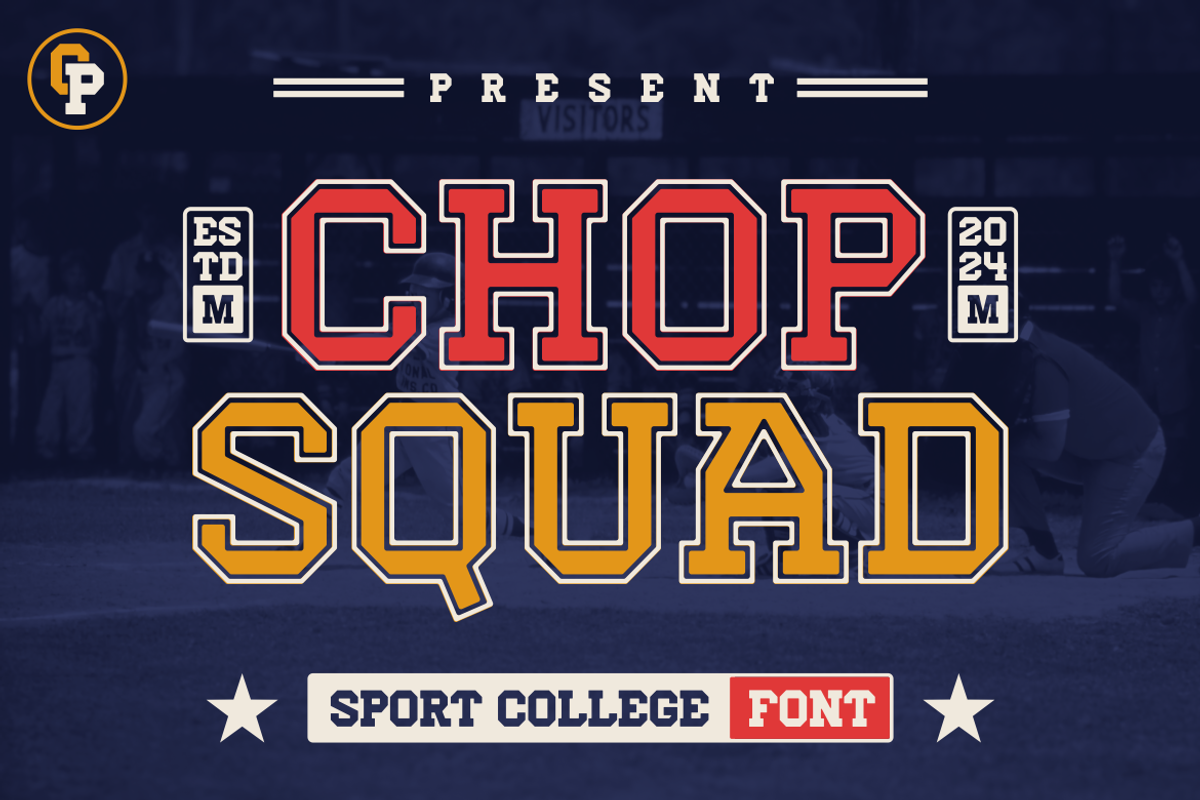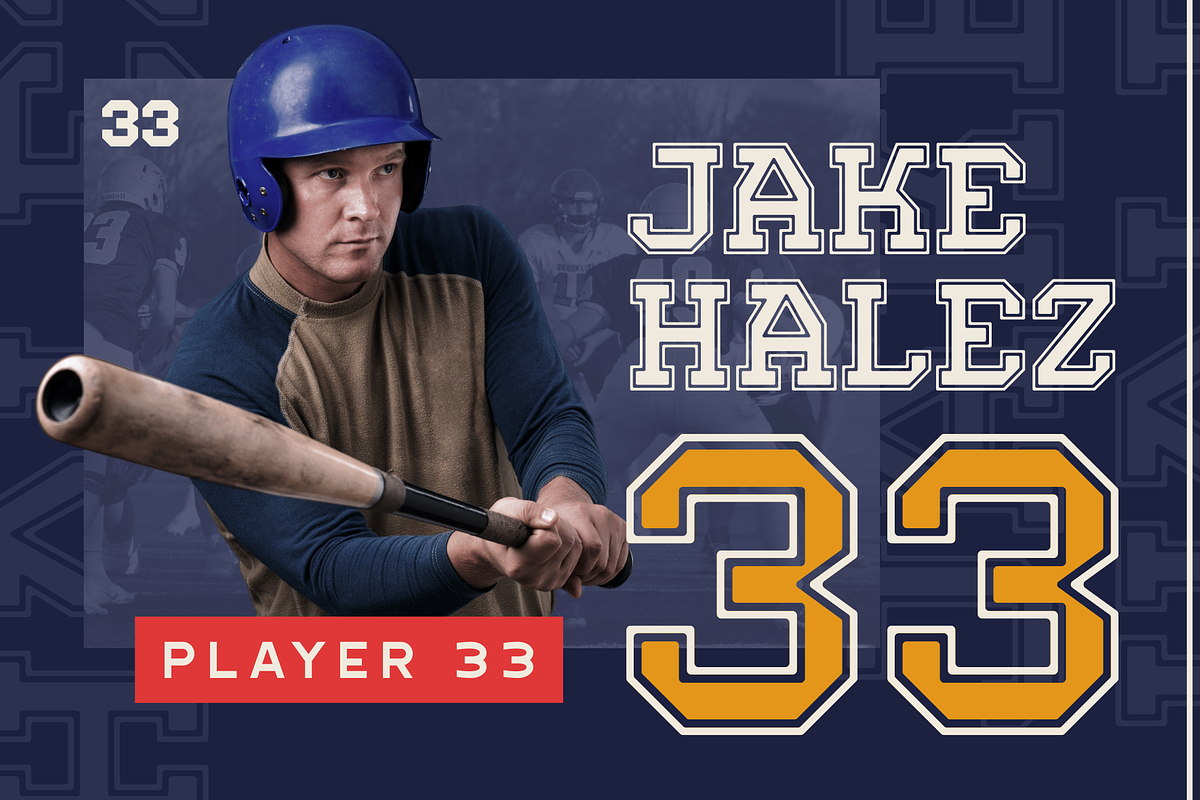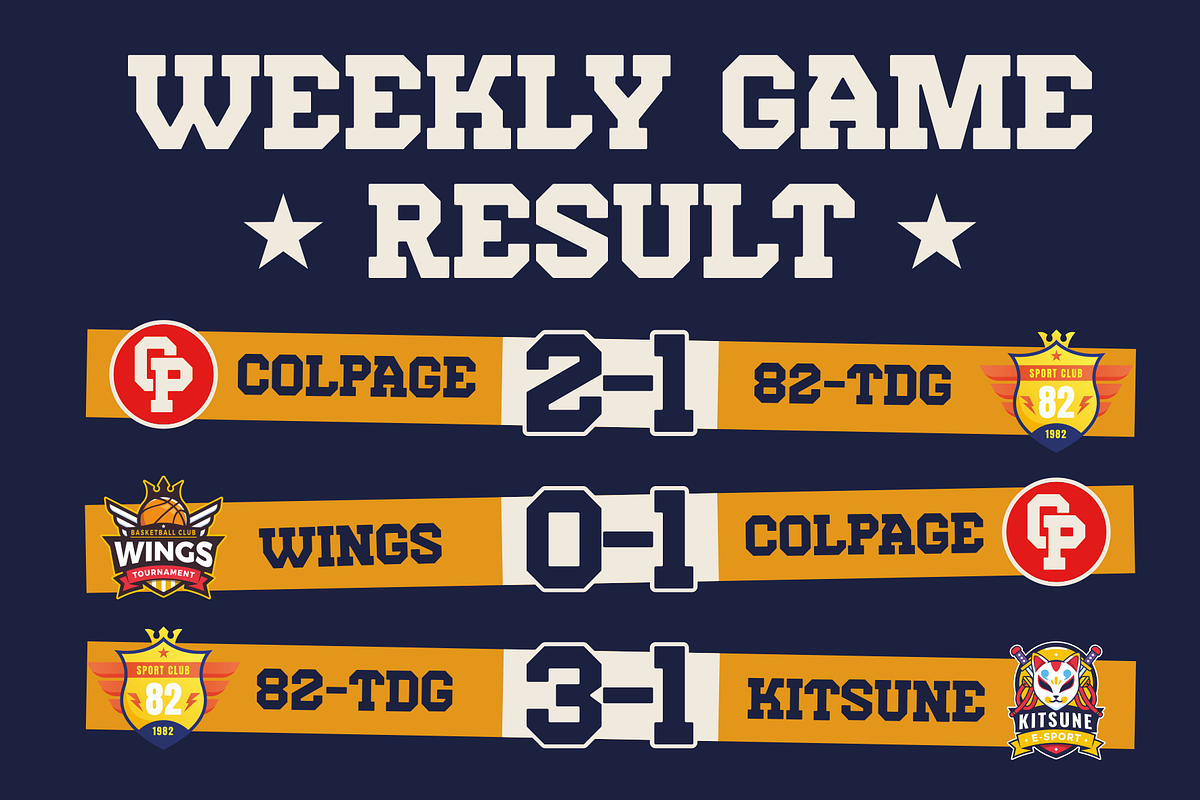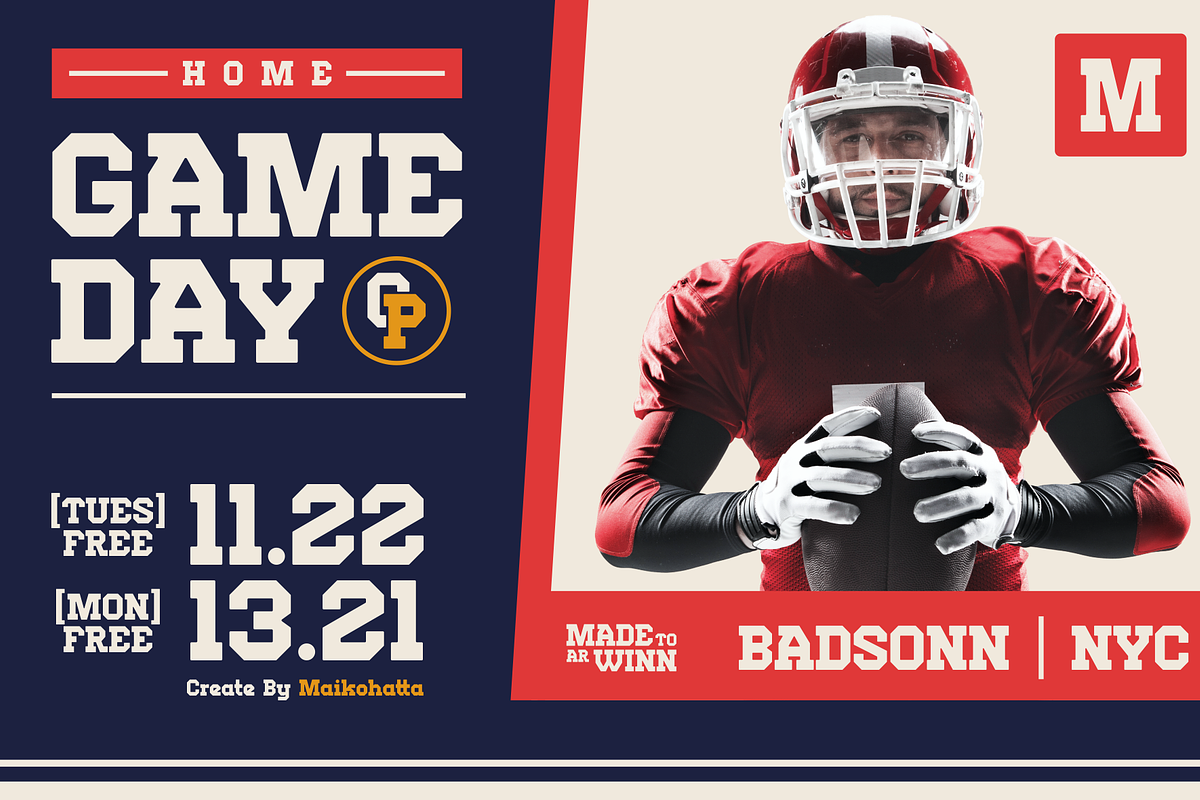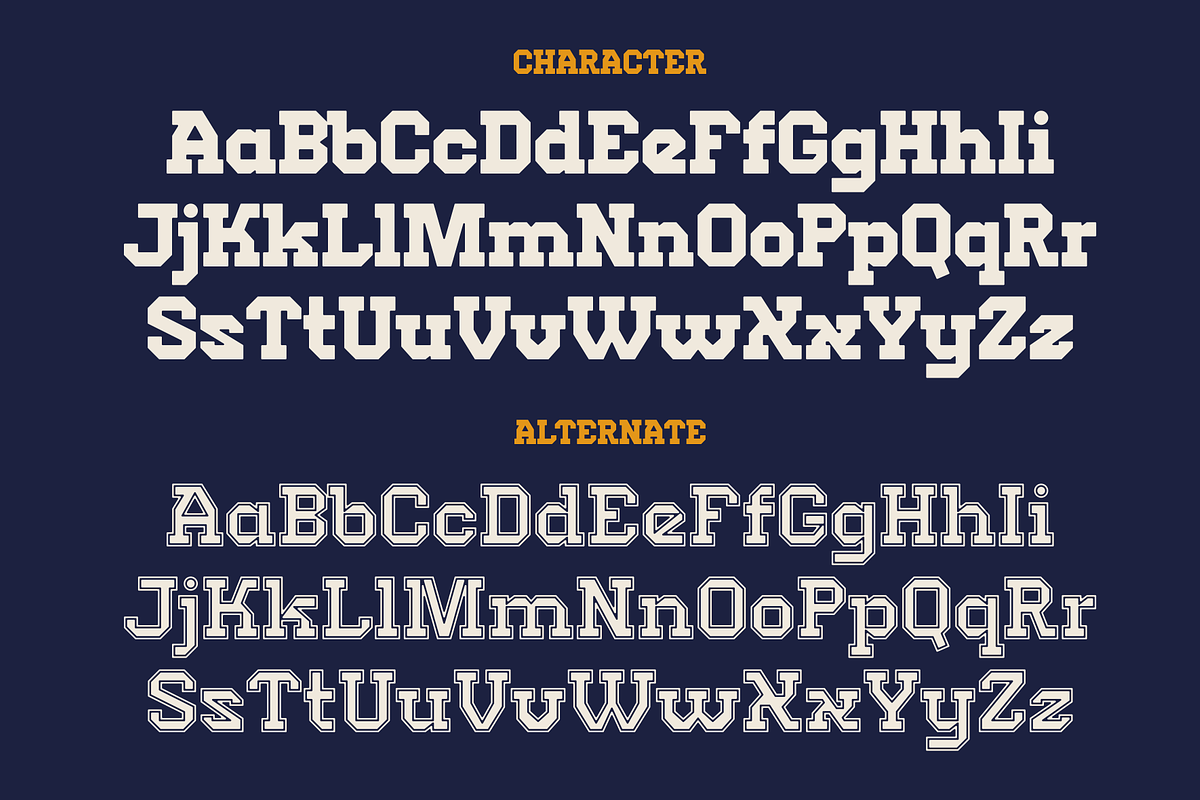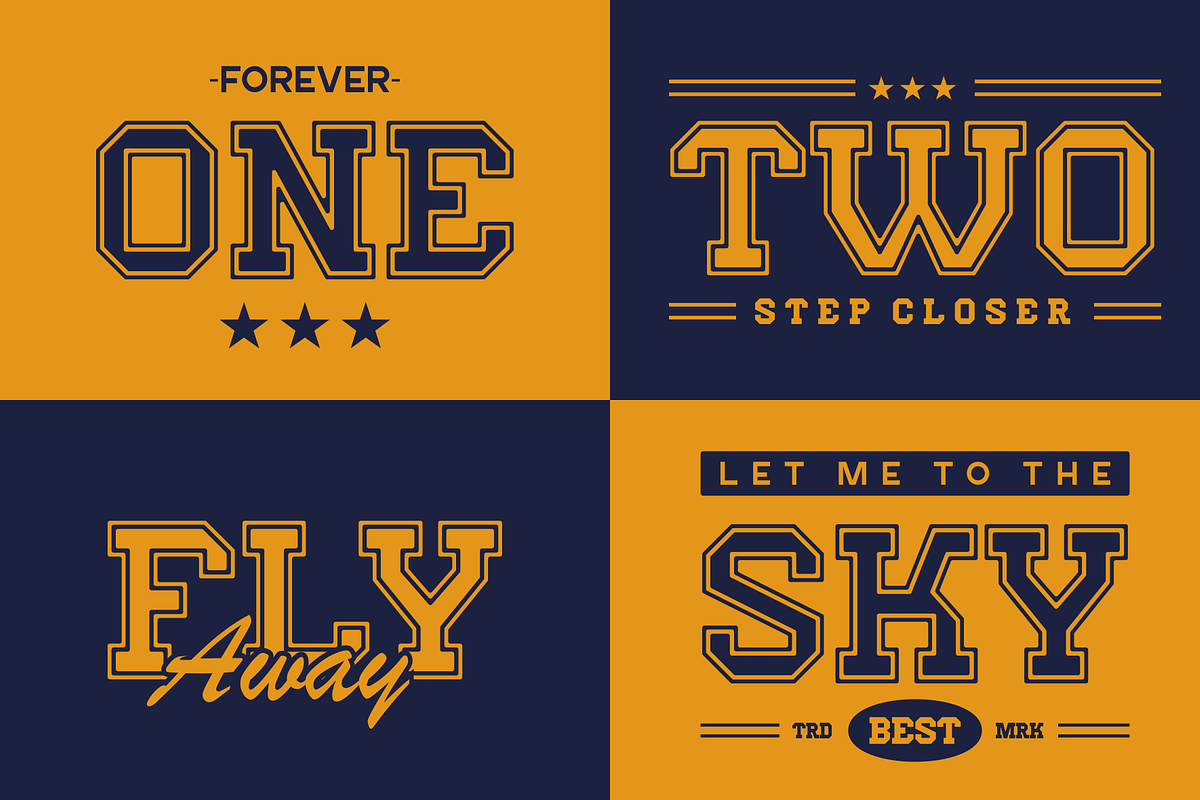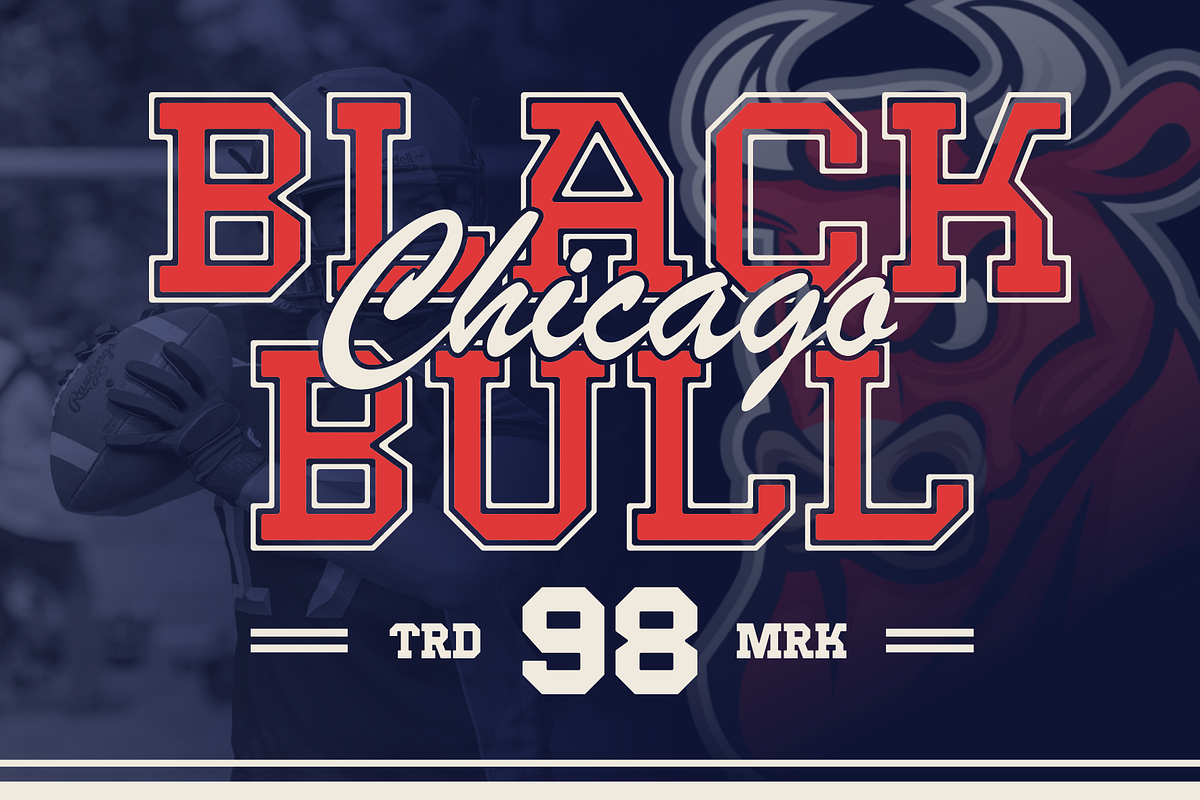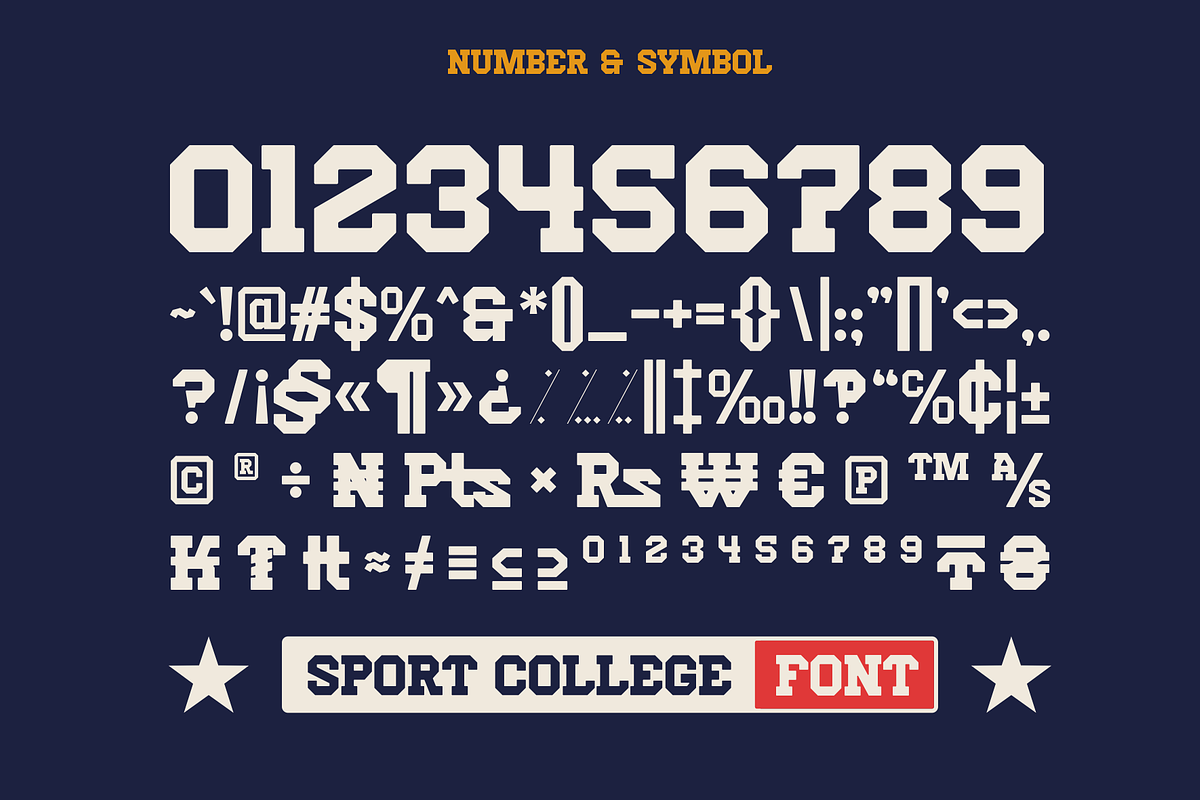
Chop Squad - Modern Serif Font
Introducing our new productChop Squad - Modern Serif Font
This font was designed to reflect the dynamic spirit, energy and toughness often associated with physical activity and sports. This font can be used in brand identities of sports teams, sports companies, and major sporting events. This font design can contribute to creating a strong visual appeal, as well as building an emotional connection with the audience associated with a spirit of competition and achievement.